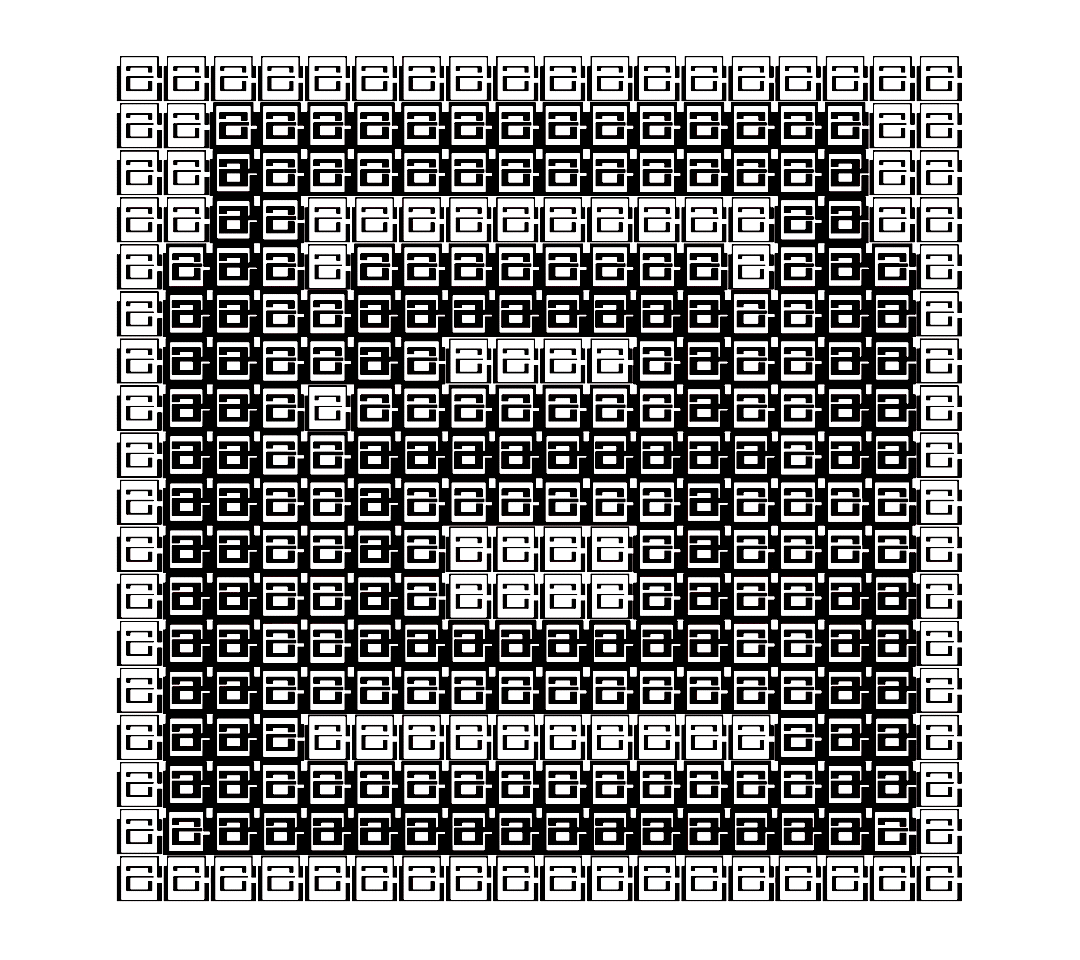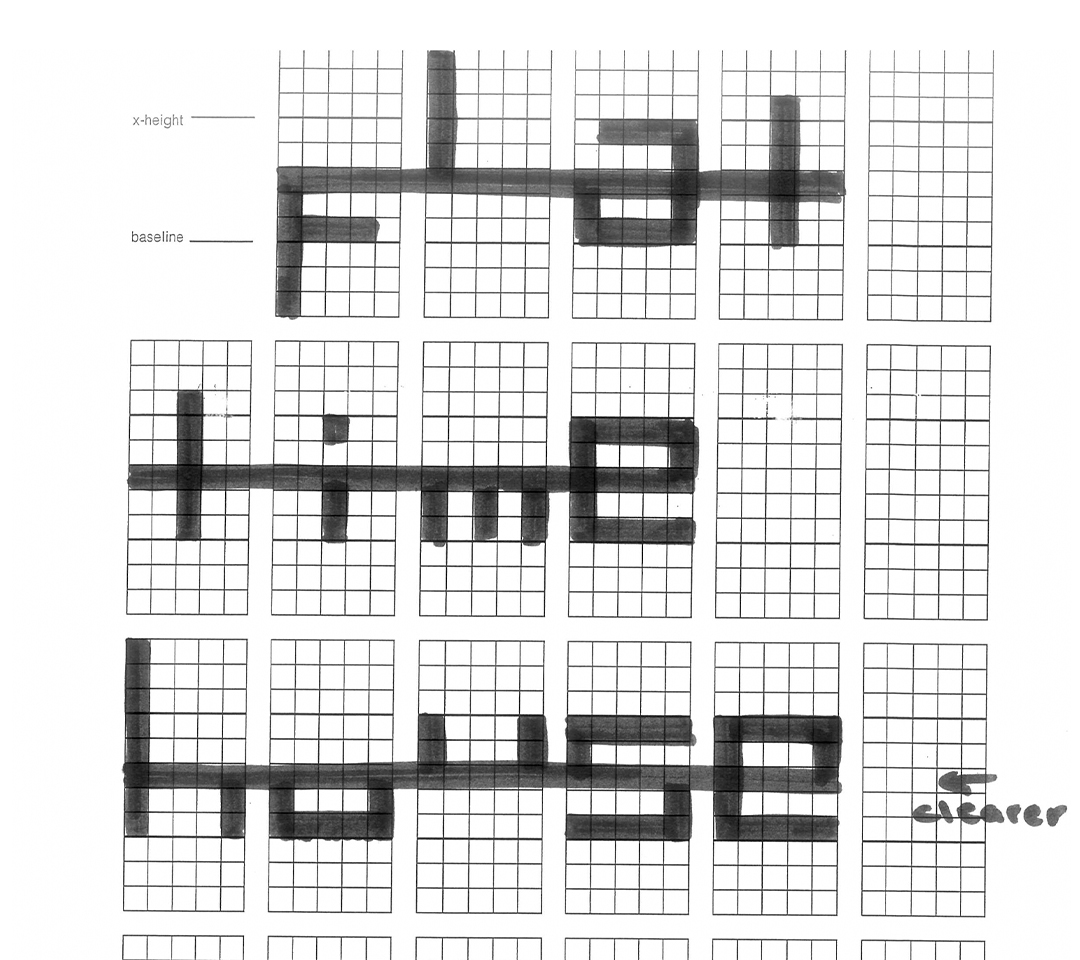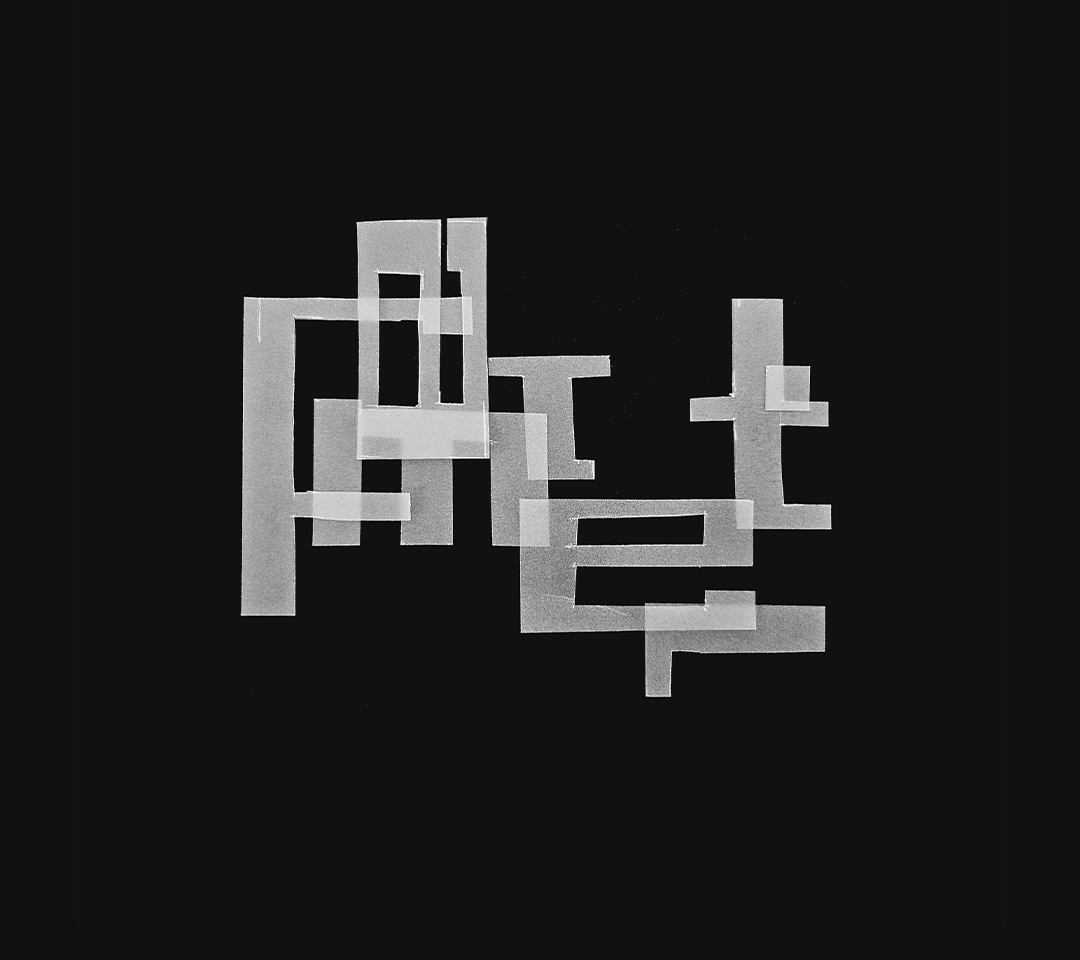
Split Event is based on the principles taken from the corridor in John Latham's house, now open as Flat Time House. Each room in Latham's house was assigned a body part that it most reflected. The corridor from which the kitchen, bathroom and kitchen stemmed from, was titled 'body event', where all necessary functions are held together. This inspired the offset baseline for my typeface, it's non-traditional nature reflects the non-traditional way in which John Latham viewed the world.